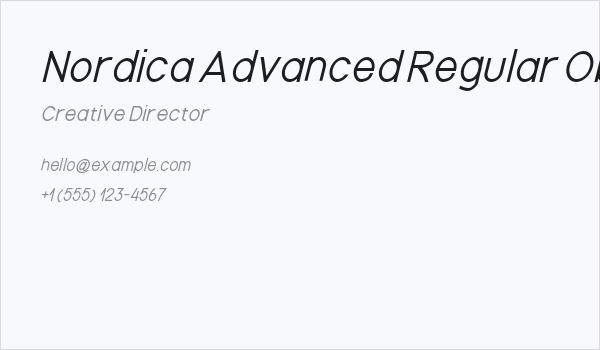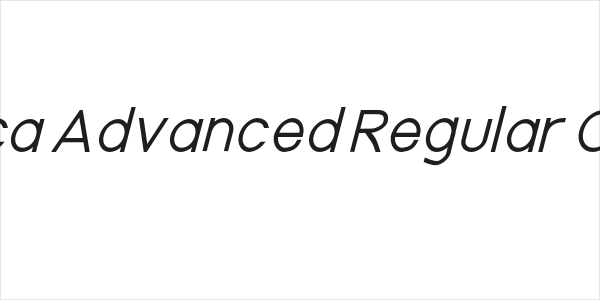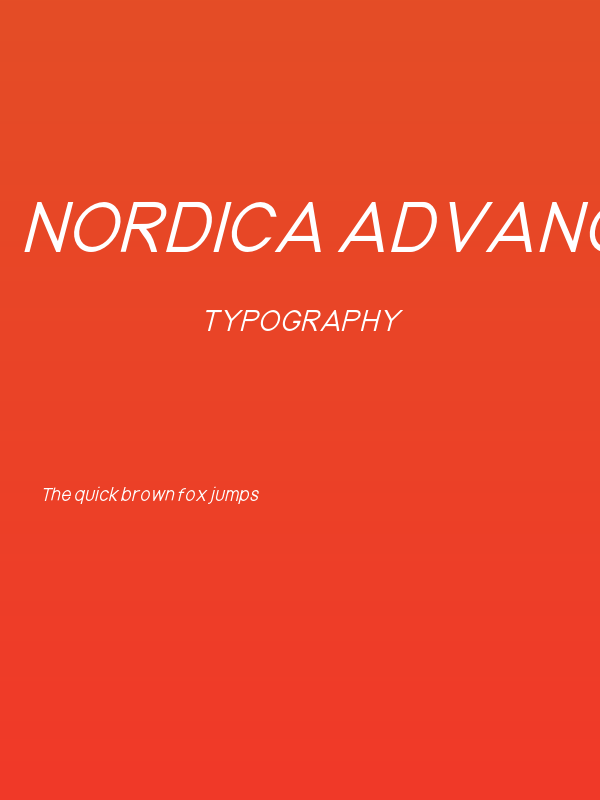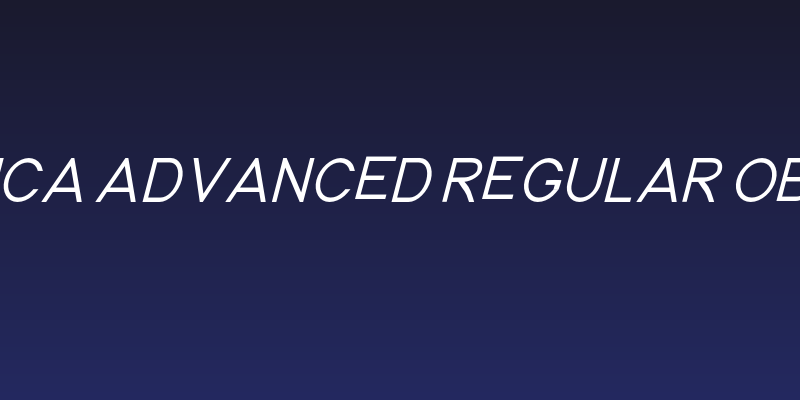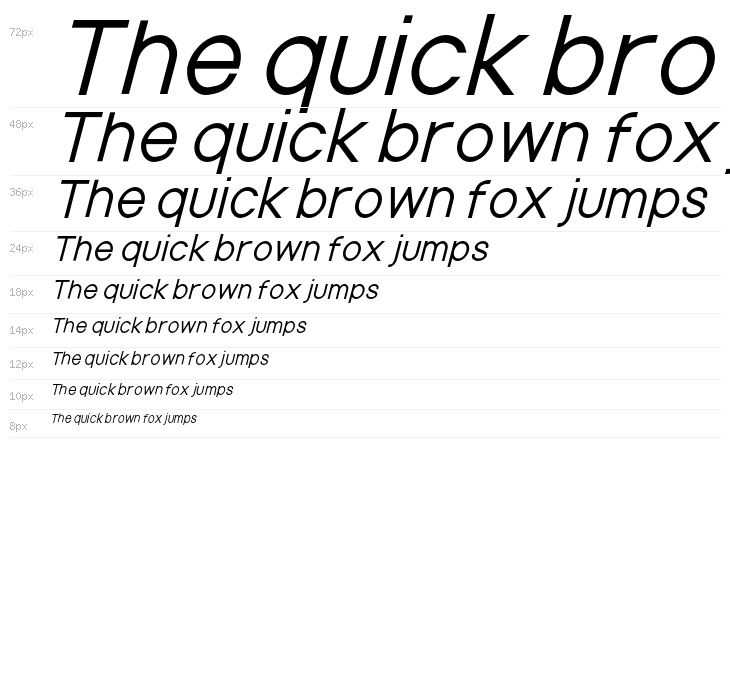
Nordica Advanced Regular Oblique Font
Nordica Advanced Regular Oblique Description
This font exhibits a sleek and modern aesthetic with a distinct oblique style, giving it a dynamic and forward-leaning appearance. The characters are clean and streamlined, featuring a sans-serif design that emphasizes simplicity and readability. The uniform stroke width across the characters contributes to a harmonious and balanced look, while the slight slant adds a sense of motion and elegance. The numerals and special characters maintain the same stylistic approach, ensuring consistency throughout. This font is versatile, suitable for both digital and print media, and can effectively convey a contemporary and professional tone.
Proposed ProjectsIdeal for branding, advertising, and editorial design projects that require a modern and professional touch.